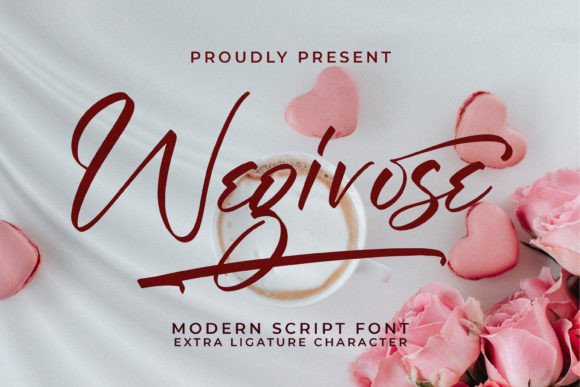
Welcome to the realm of Wegirose, a premium script font crafted with elegance and style. Journey into a world of design possibilities, where luxury and sophistication converge to bring your creative visions to life. Wegirose isn't just a font; it's an experience, a unique blend of beauty and functionality that elevates your projects to new heights.
Immerse yourself in the allure of Wegirose's graceful curves and flowing strokes, meticulously designed to evoke a sense of timeless elegance. Each letter dances across the page, carrying your message with an air of sophistication that's sure to captivate your audience. Whether you're designing logos, branding projects, homeware designs, product packaging, or any other creative endeavor, Wegirose promises to add a touch of class and distinction.
Unleash your creativity and explore the endless possibilities that await you with Wegirose. Imagine your designs adorned with this exquisite script, transforming them into captivating works of art. From mugs and posters to shopping bags and t-shirts, Wegirose adds a touch of charm and elegance to every surface it graces. Create covers for books that exude an air of mystery and sophistication, or craft business cards and invitation cards that leave a lasting impression.
With Wegirose, you'll discover a font that's not just beautiful but also versatile. Whether you're creating labels for your products, adding watermarks to your photography, or designing special event invitations, Wegirose adapts seamlessly to meet your needs. Its premium taste and timeless aesthetic elevate your projects, ensuring they stand out from the crowd.
Embrace the power of Wegirose and embark on a creative journey like no other. This elegant script font is your gateway to a world of luxury, sophistication, and endless possibilities. Let Wegirose ignite your imagination and transform your designs into masterpieces that capture hearts and minds. Your creative possibilities are limitless with Wegirose, the ultimate script font for your design arsenal.